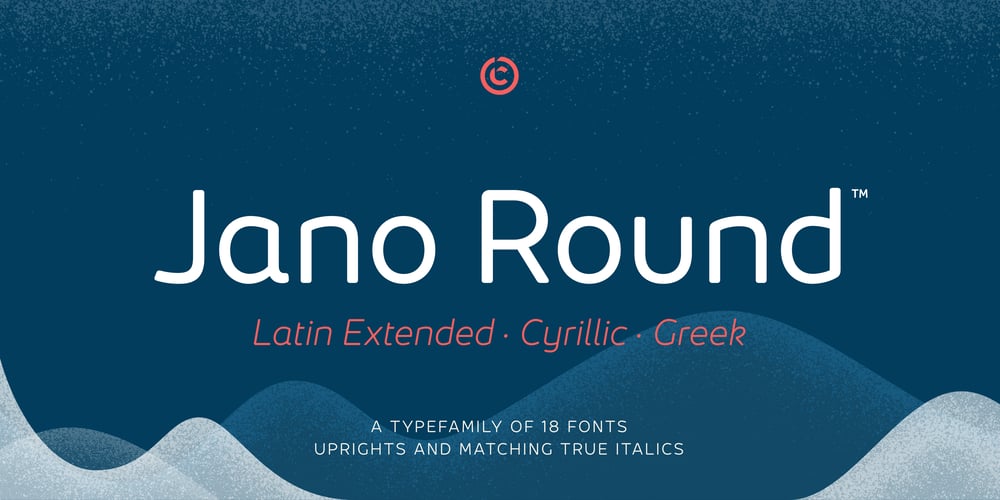
Jano Round
Jano Round font
Jano Round Font Family was designed by João Cracel and published by Craceltype. Jano Round contains 18 styles and family package options. Jano Round™ is a sans serif type family with a friendly and synergetic profile. Designed with rounded forms, low contrast and a somewhat techie feel, Jano Round™ is a highly legible typeface suited for any text application and typographic reproduction. Jano Round™ has 18 styles and its a workhorse type system. It covers 290+ languages, including extended latin, cyrillic and greek writing systems. With over 1800 glyphs per style, its Opentype features include alternative shapes, small caps, standard and discretionary ligatures, localized forms in latin and cyrillic, case sensitive forms, numerators and denominators, proportional and tabular figures, slashed zero, fractions and more. The engaging personality and the huge set of features and glyphs makes Jano Round™ an excellent choice for branding, editorial, web and broadcast.